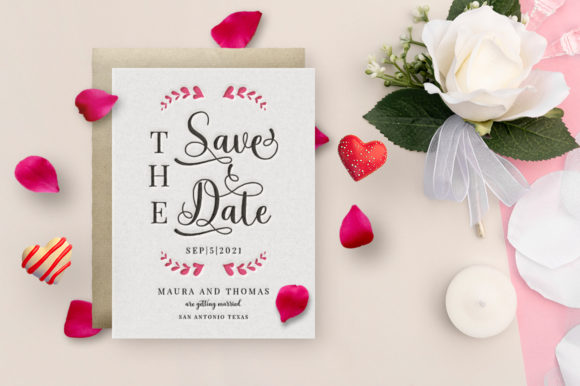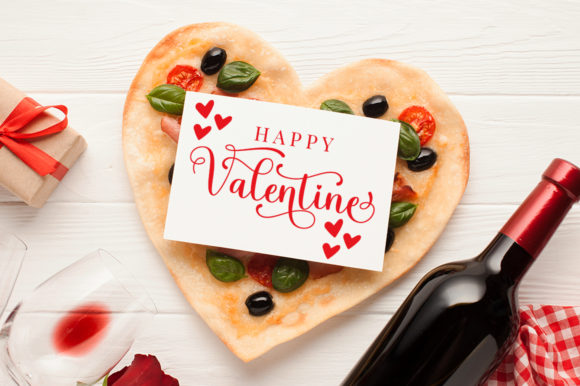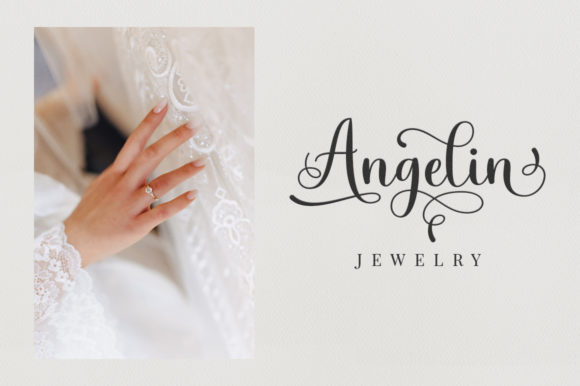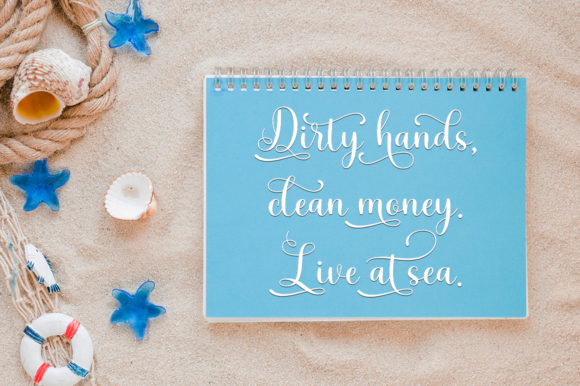
Yoshieka Font
About Yoshieka Font
Yoshieka is a sweet, soft hand-lettered script. The playful rounded characters make it the perfect font for creating stunning DIY projects. Yoshieka comes packed with stunning swashes, that will allow you to add a decorative touch within seconds. Fall in love with its authentic feel and use it to create gorgeous wedding invitations, beautiful stationary art, eye-catching social media posts, and cute greeting cards.